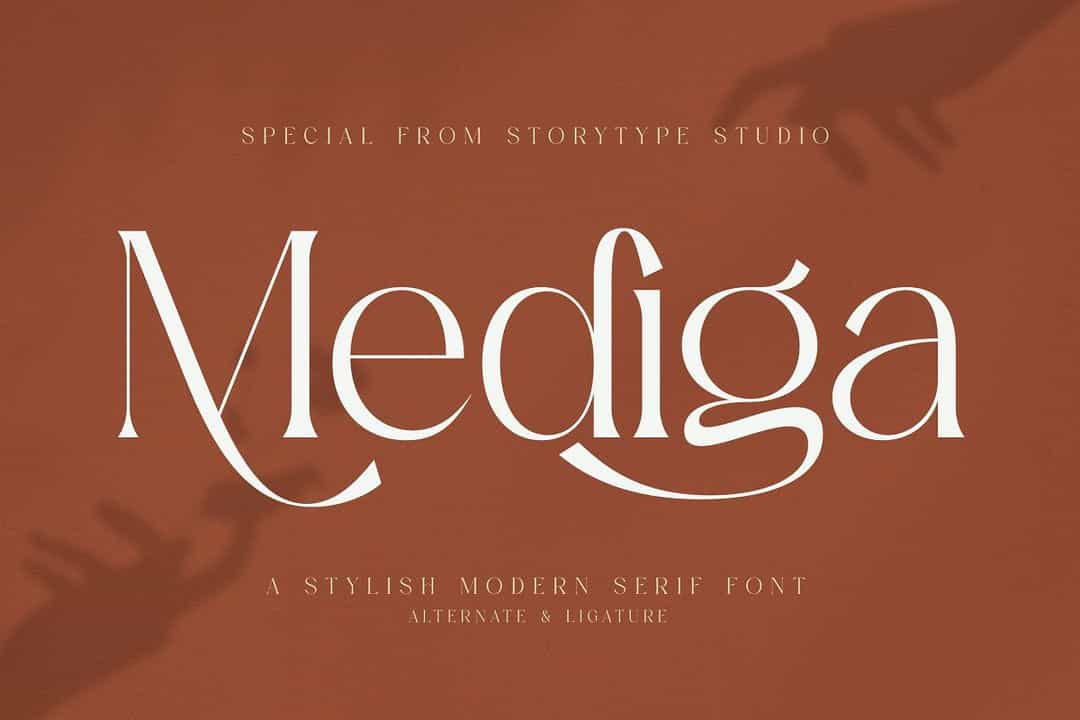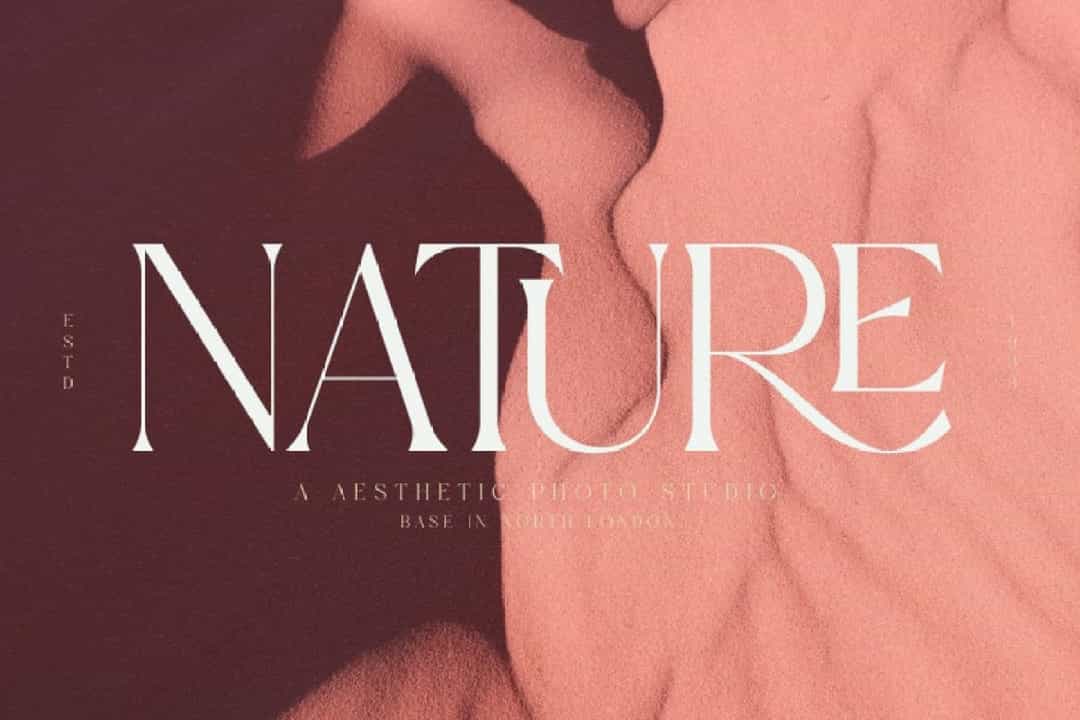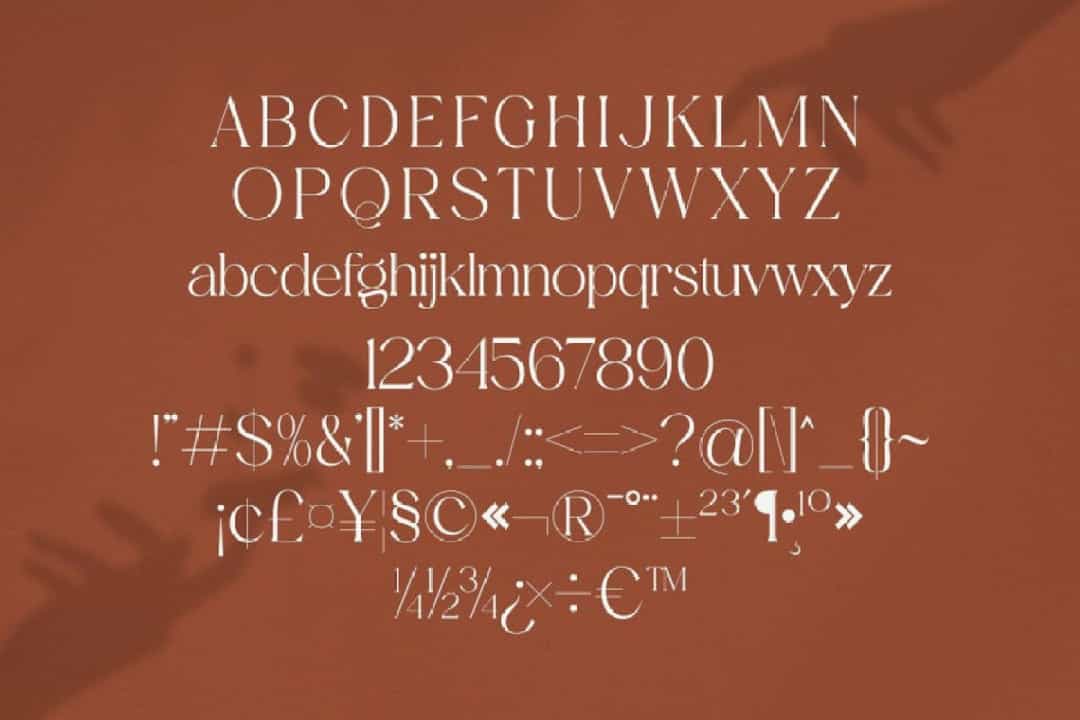
Storytype’s Mediga is an elegant and contemporary serif typeface with its distinct style and modern appearance, perfect for creating classy logos, movie or book name designs, fashion brand clothing logos, magazines letters quotes and much more.